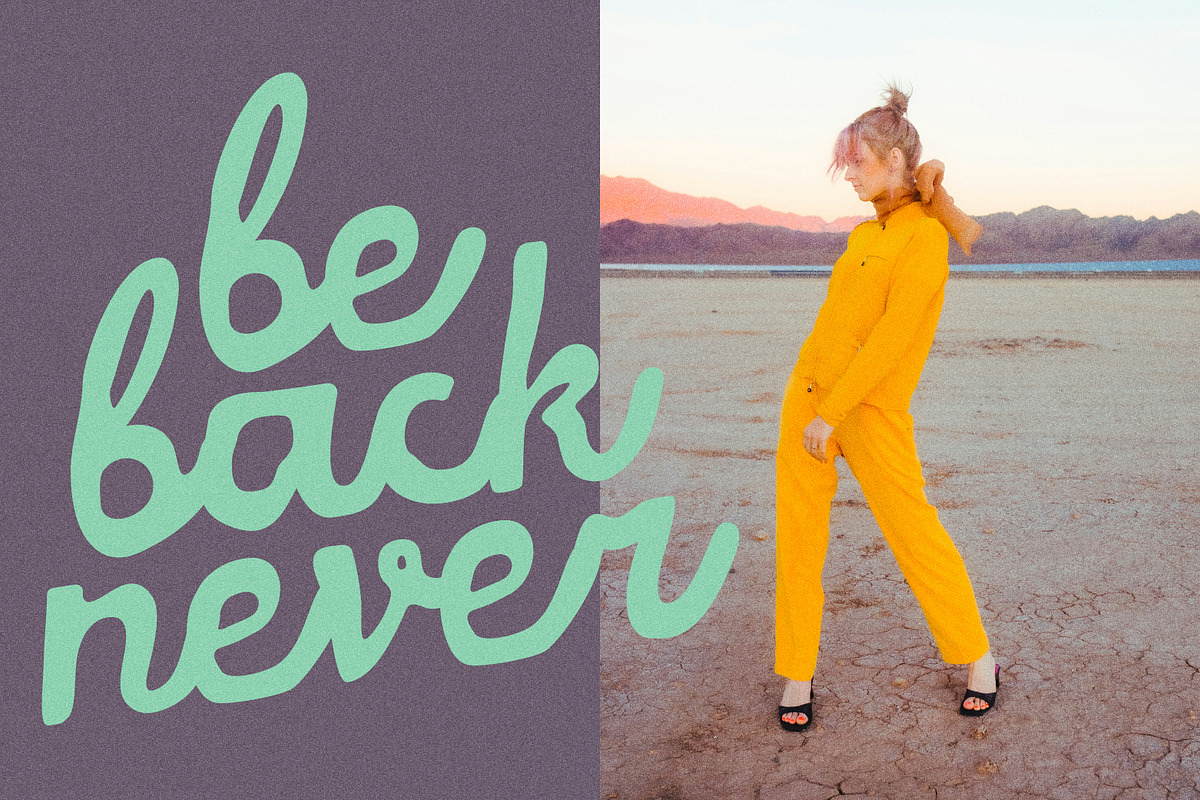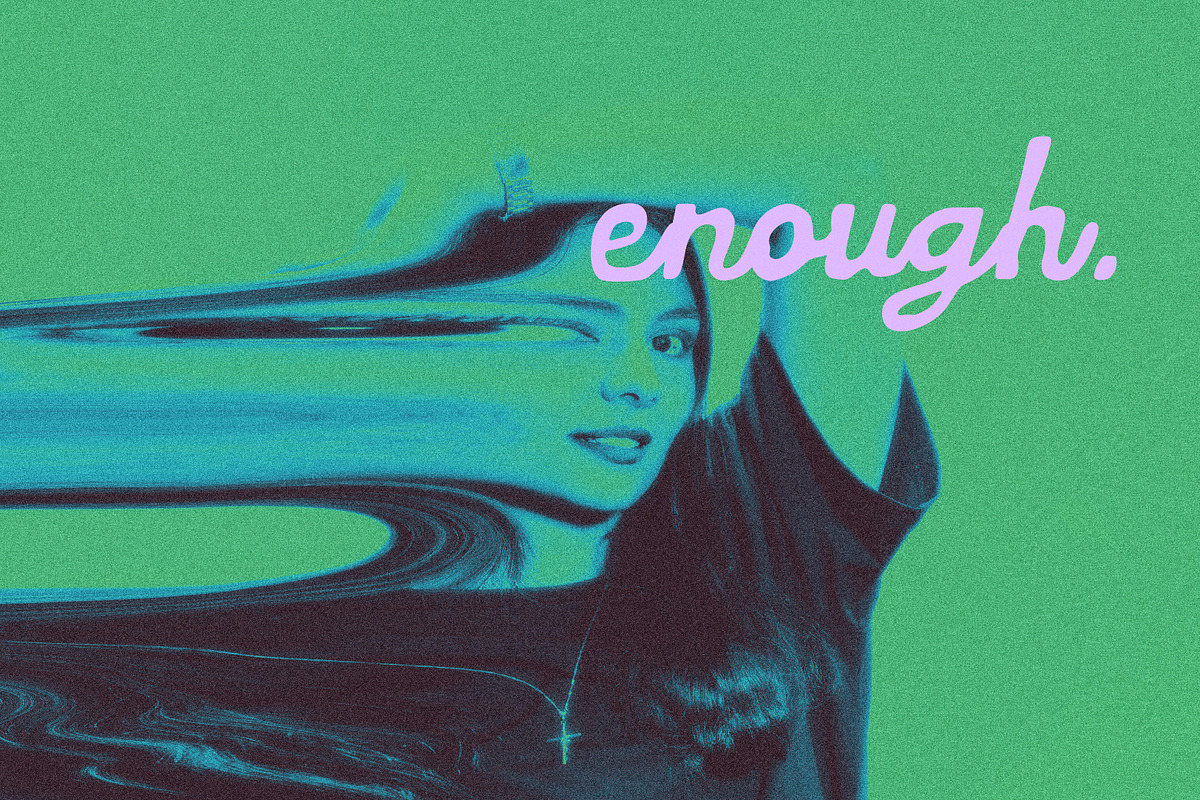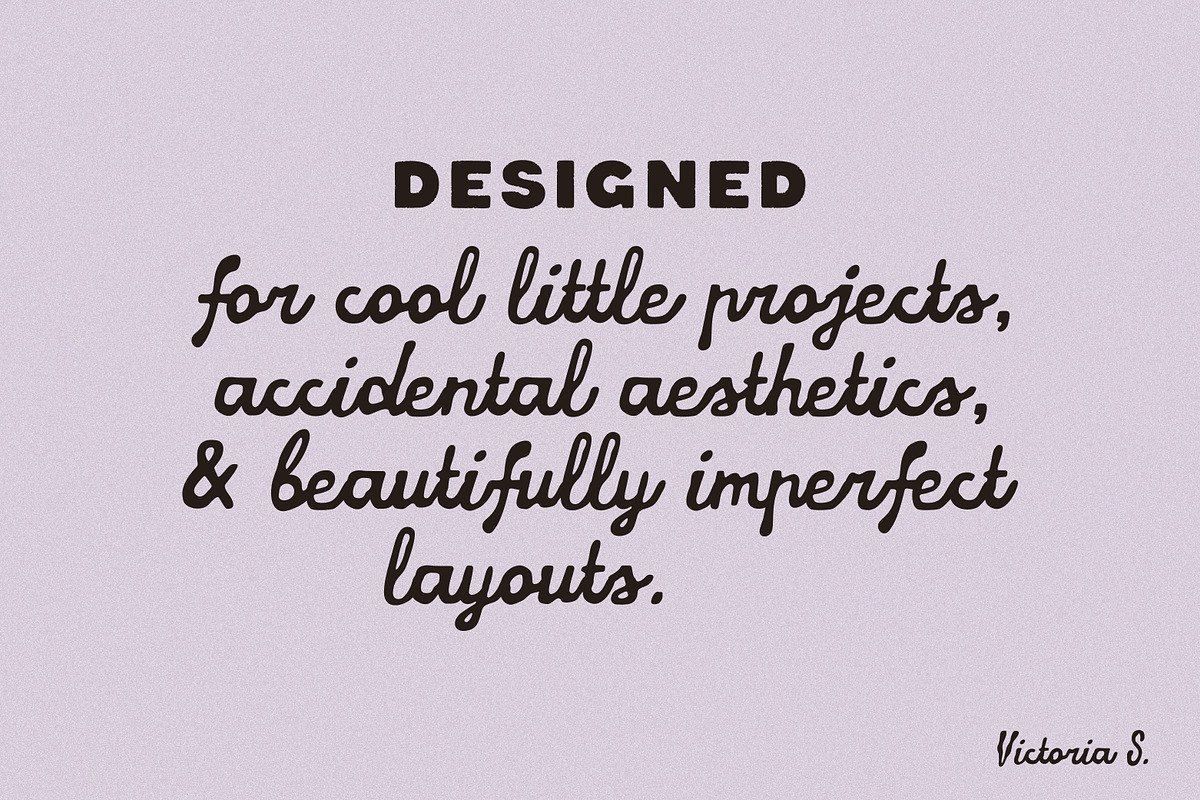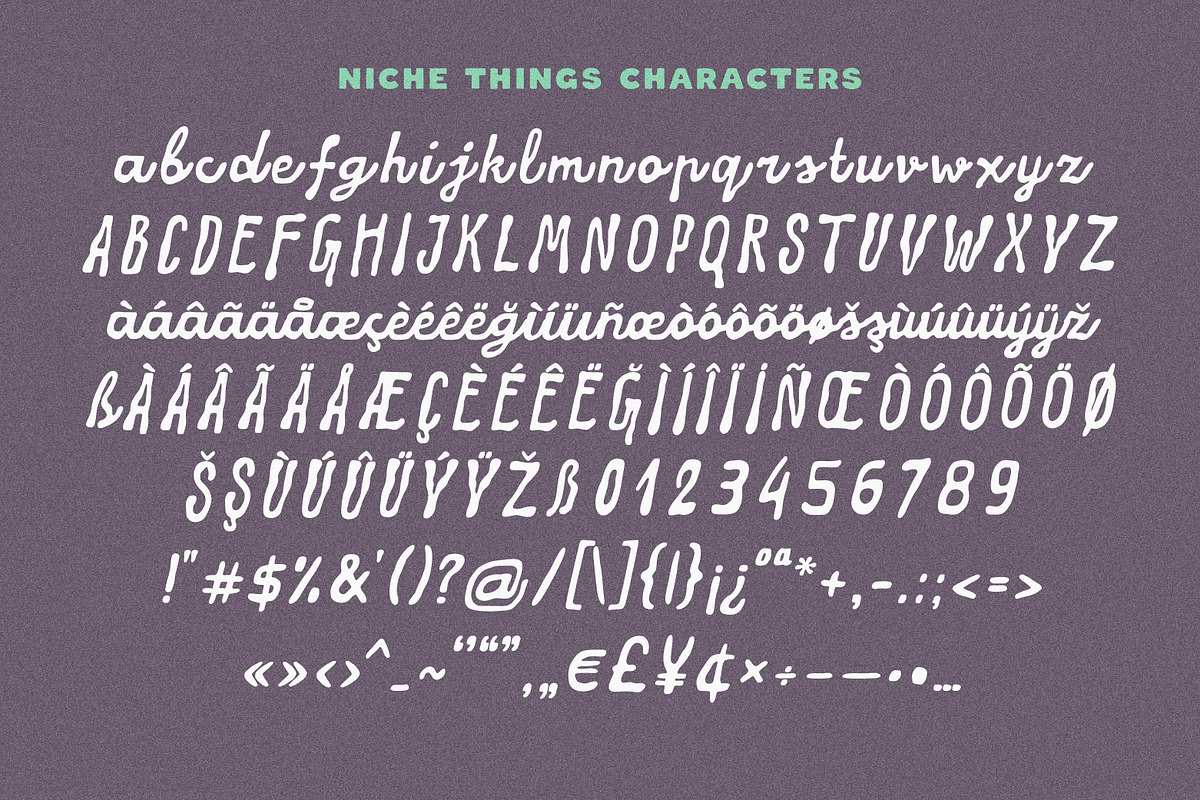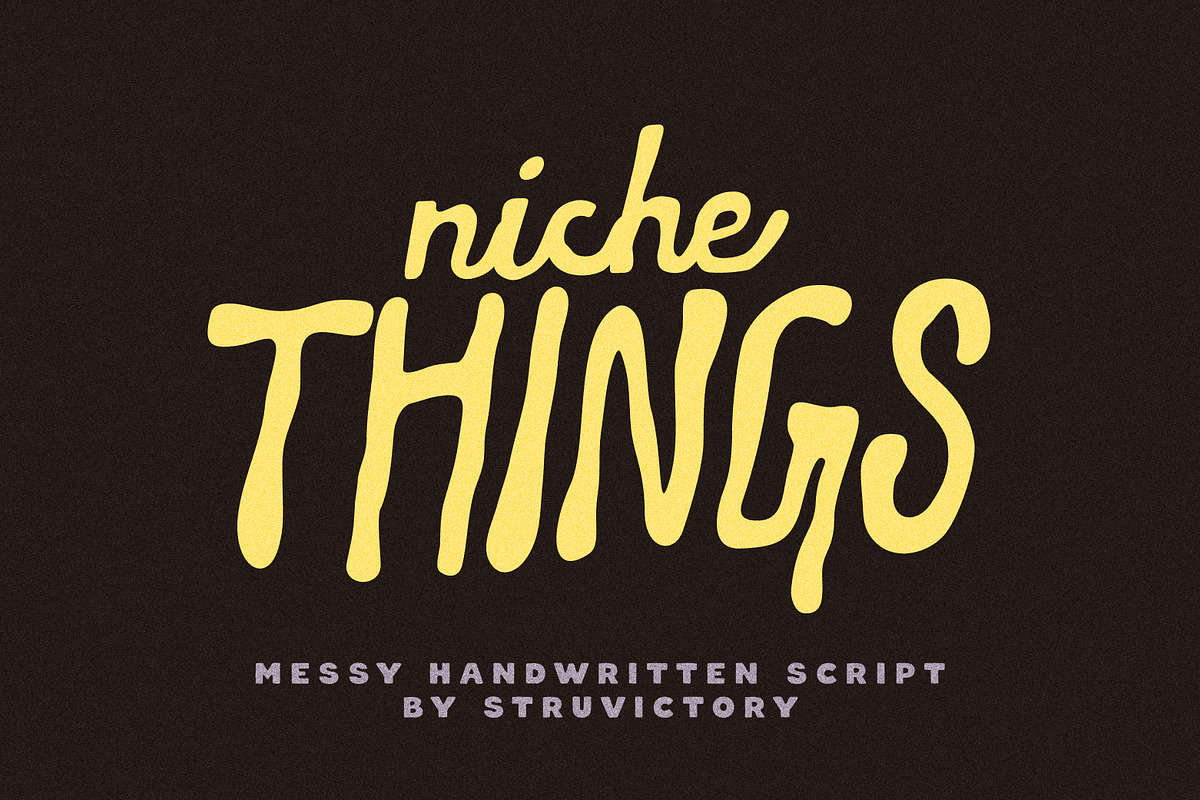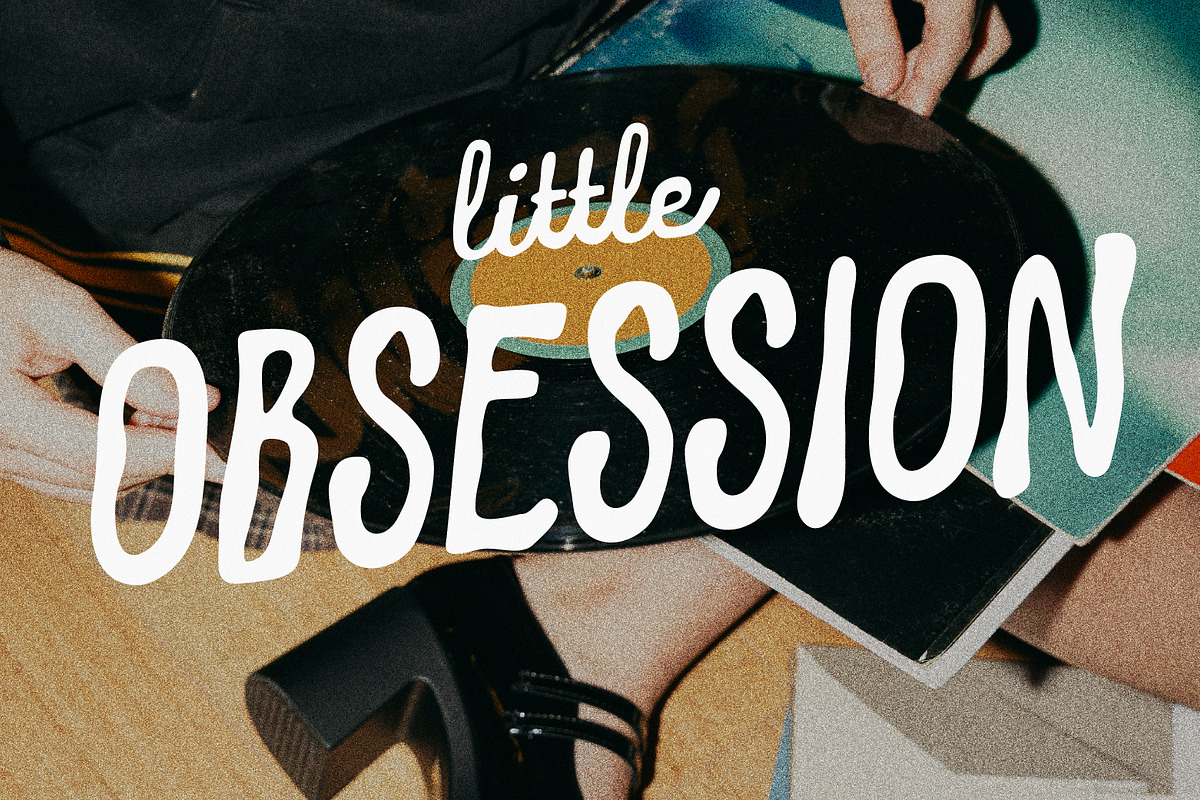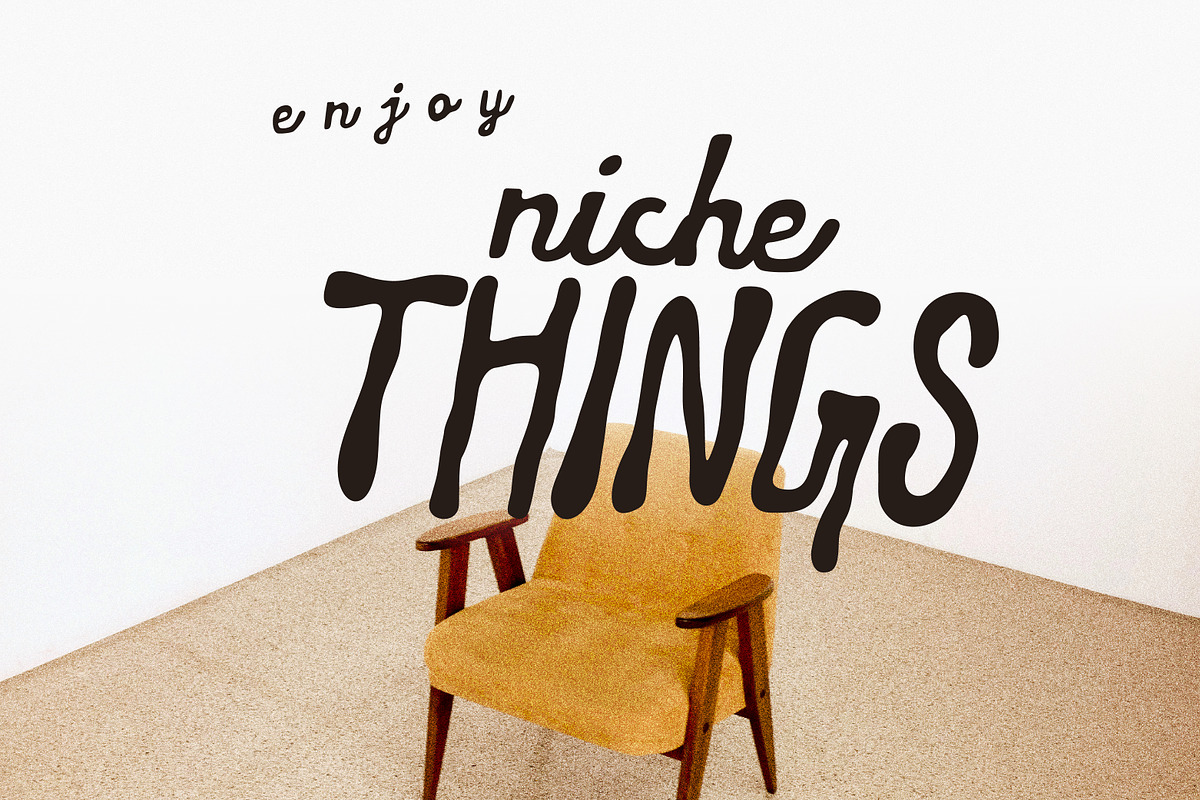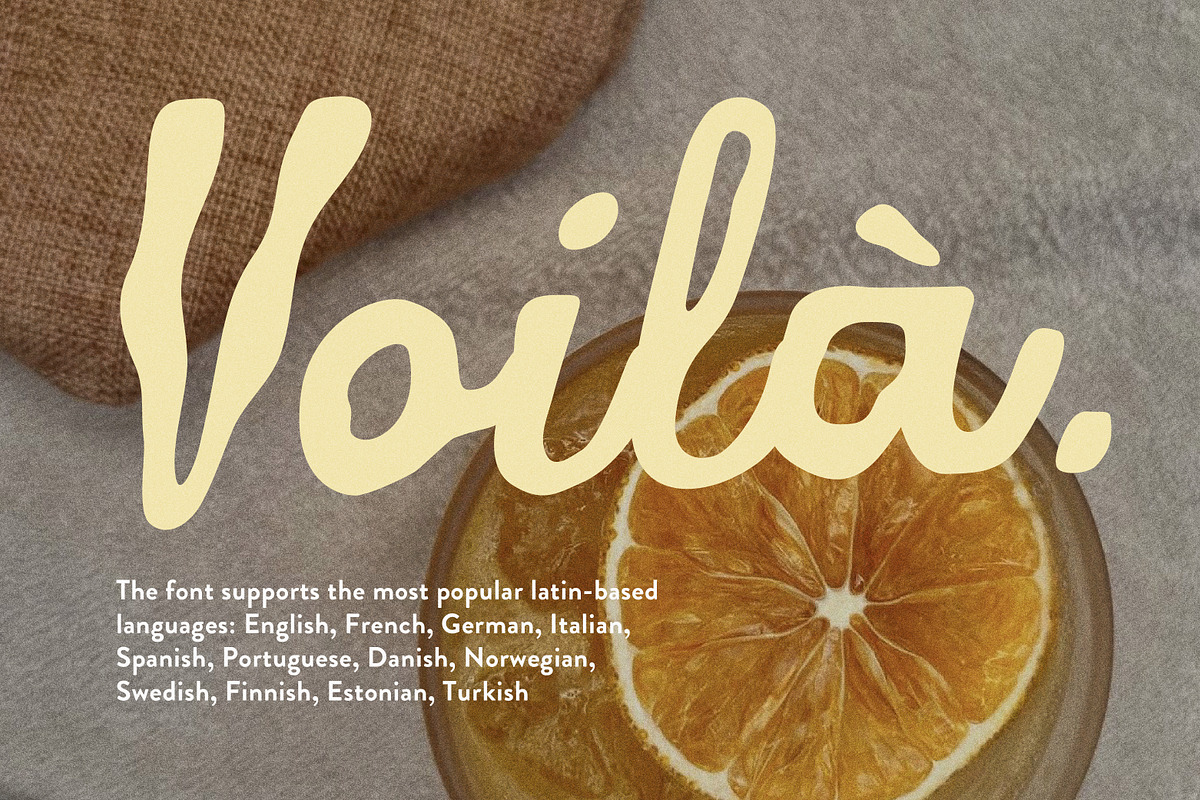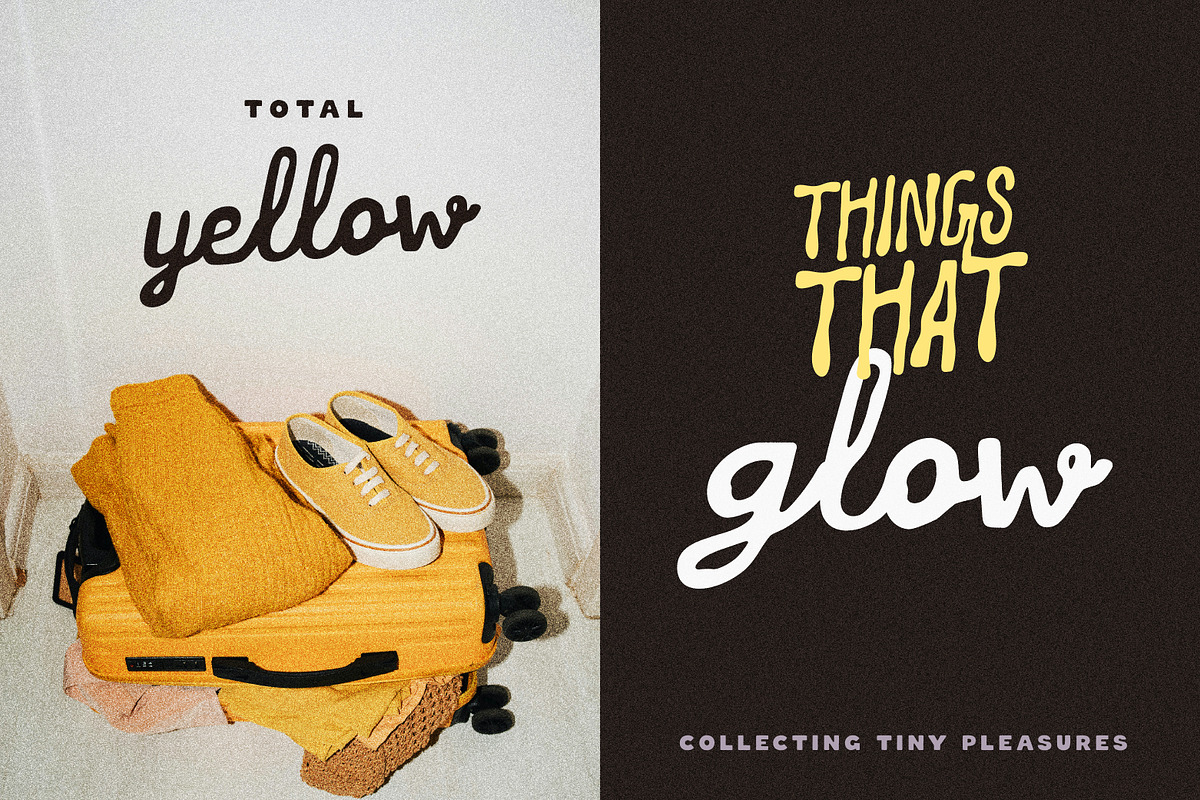
NicheThings Messy Handwritten Script
Niche Things is a bold handwritten script with chunky shapes, uneven movement, and a carefree visual rhythm. Balancing playful energy with a slightly raw, unpolished look, it was created for designs that feel expressive, youthful, and full of personality. The font works beautifully for posters, packaging, branding, product labels, social media graphics, apparel, creative editorials, and trend-driven visual identities. With its casual flow and eye-catching forms, Niche Things brings a loud, spontaneous character to both digital and print projects while keeping layouts approachable and human.
Niche Things supports the most popular latin-based languages, you can check the symbol you need by typing a couple of words in the font preview box.